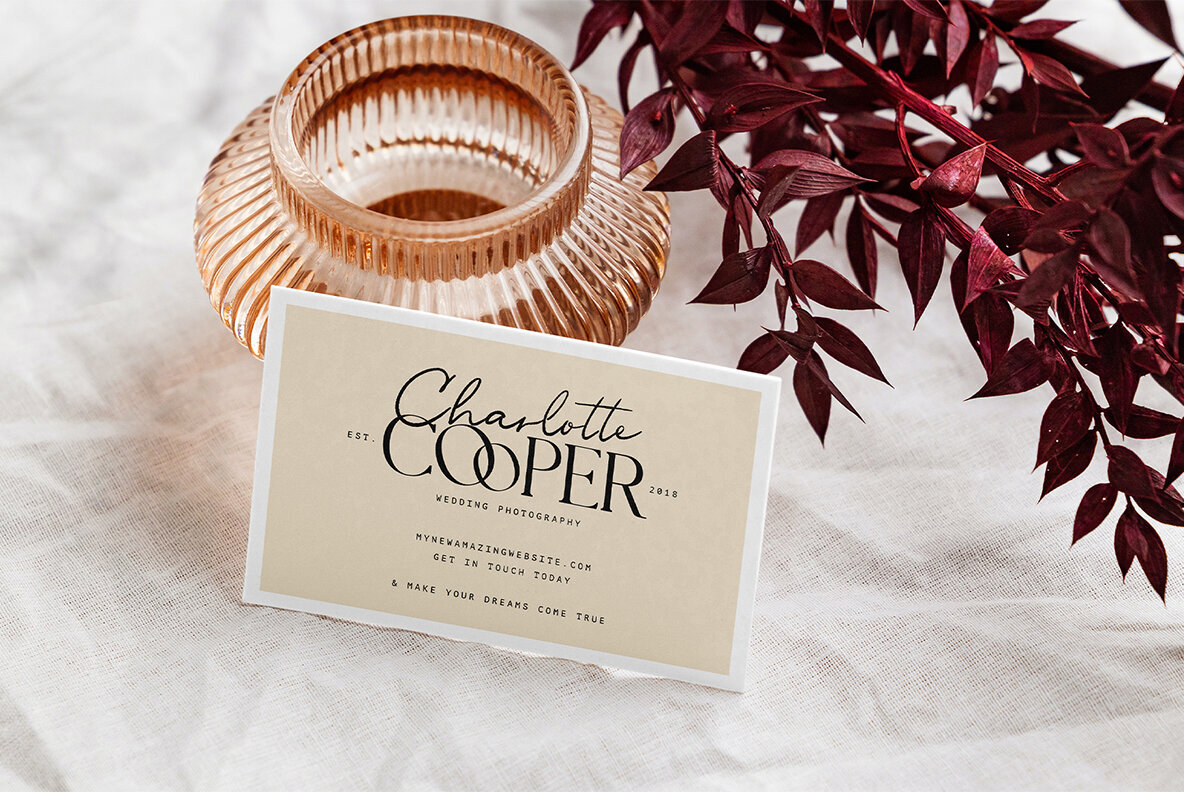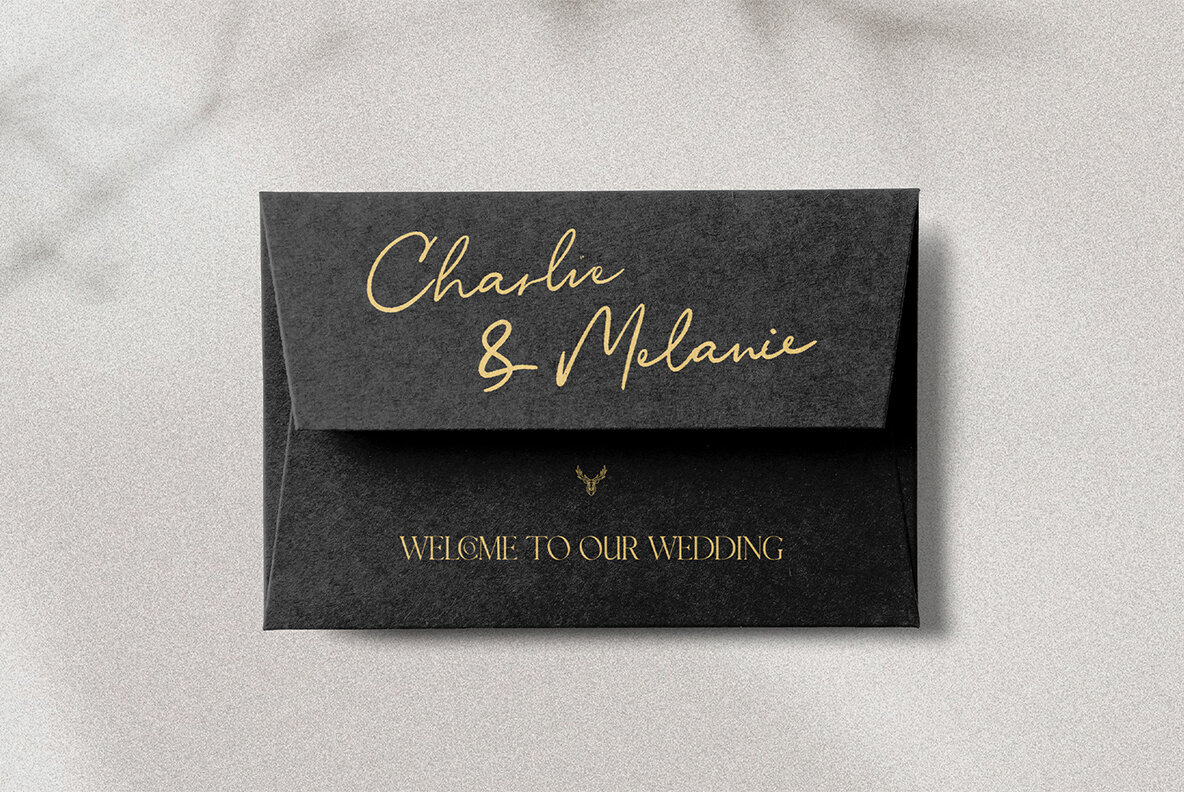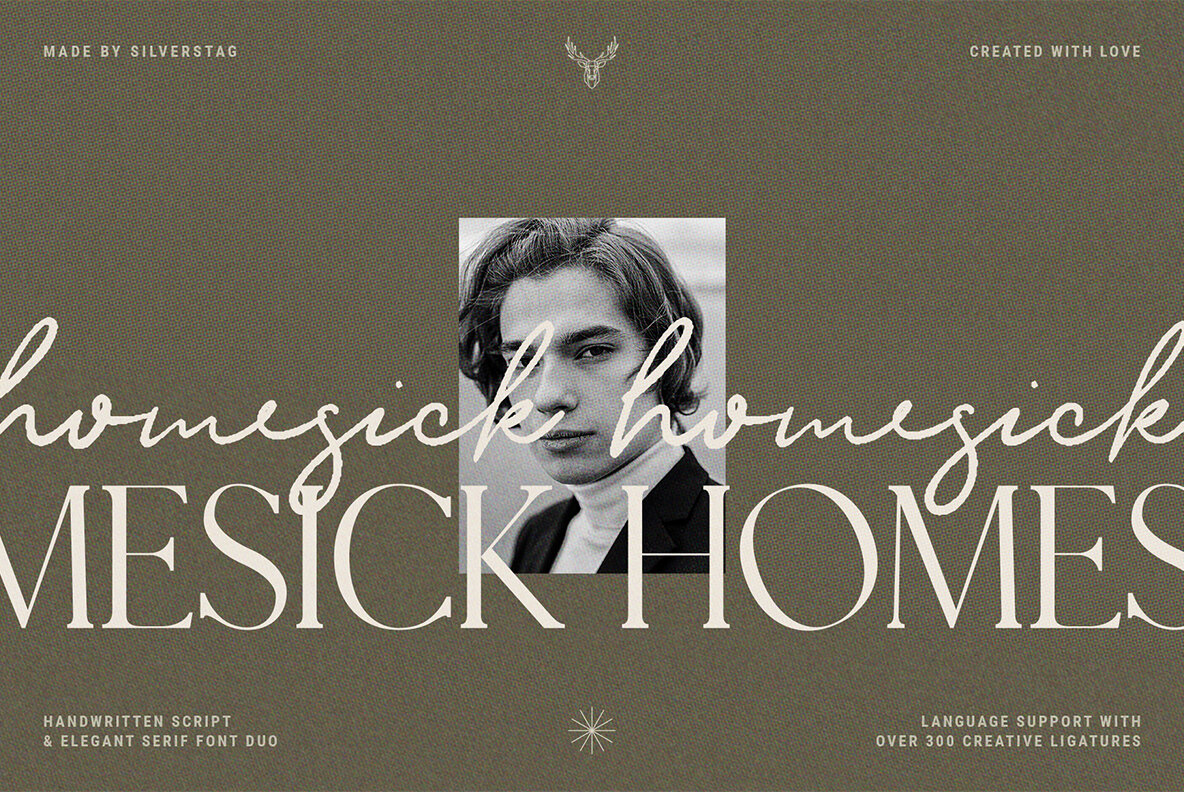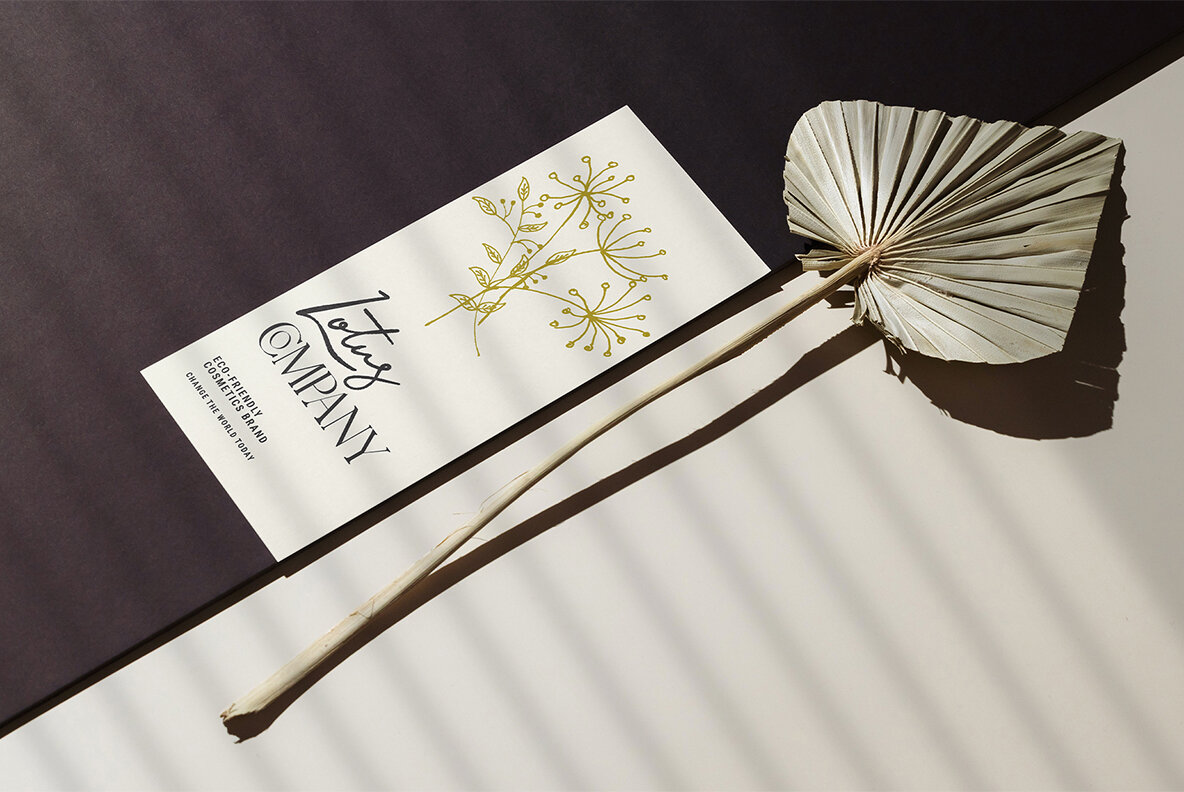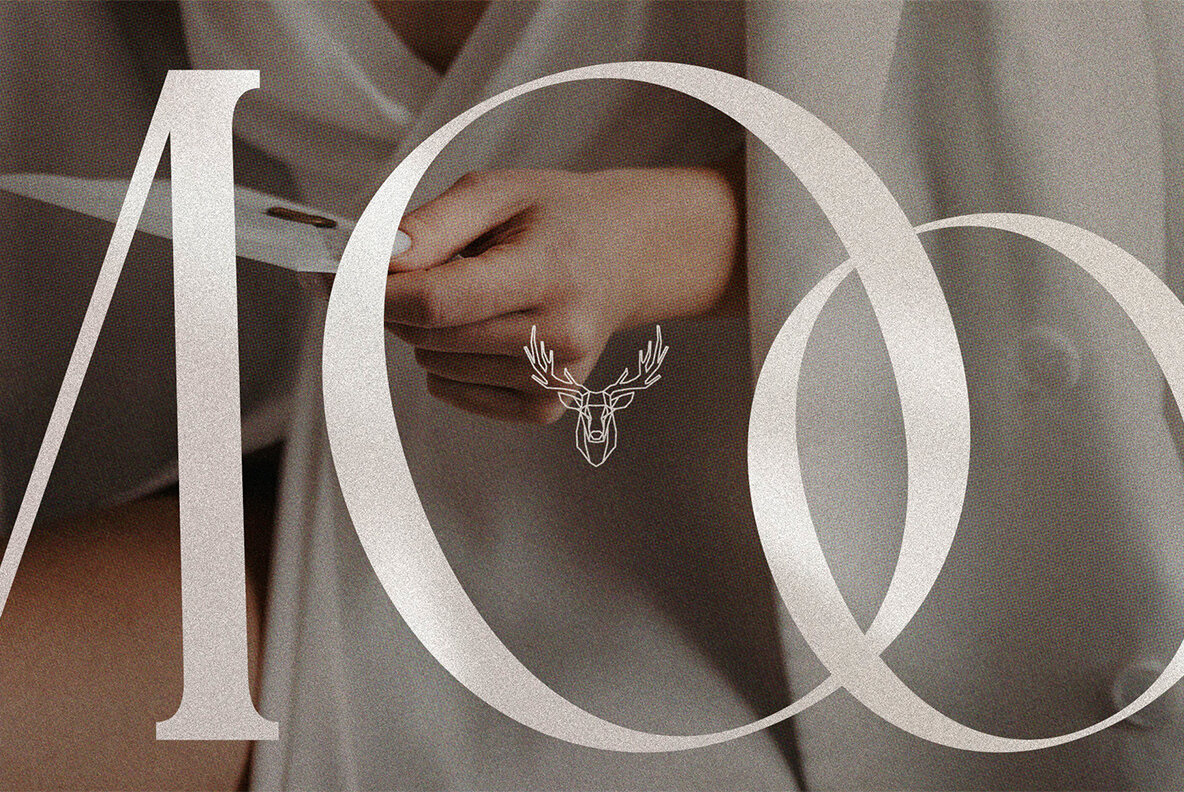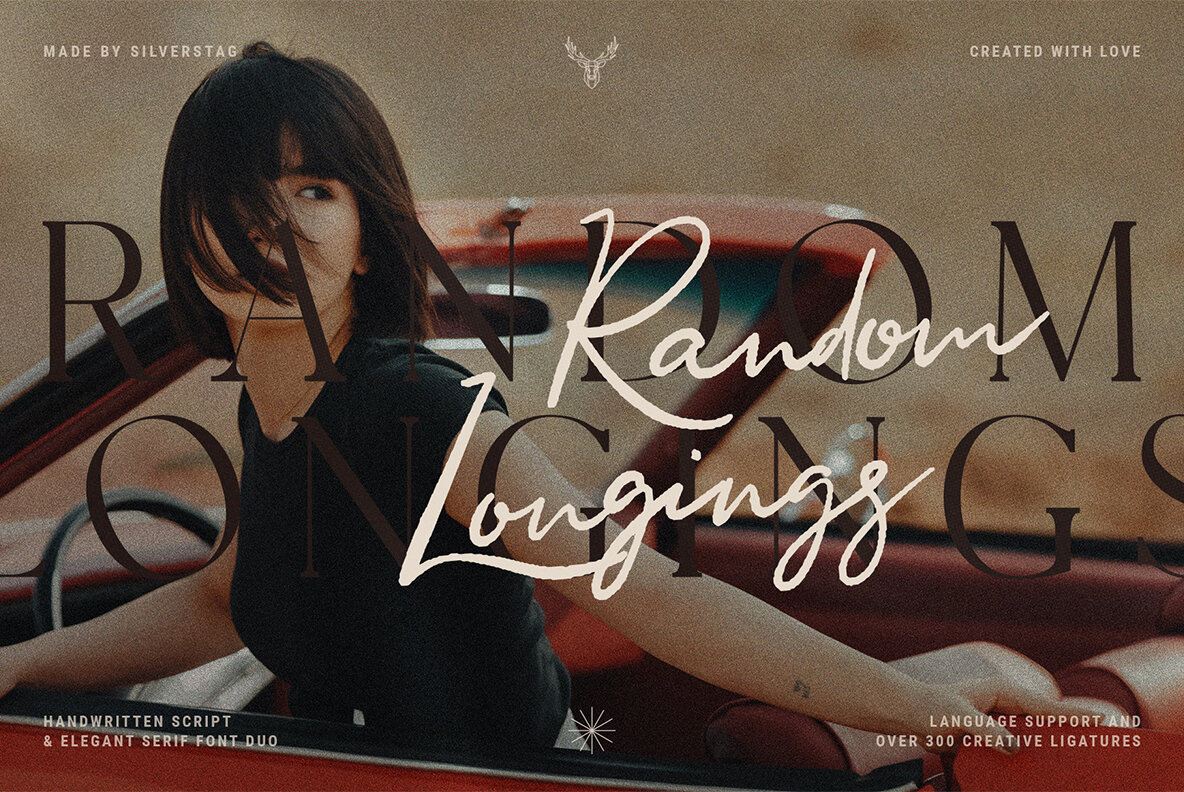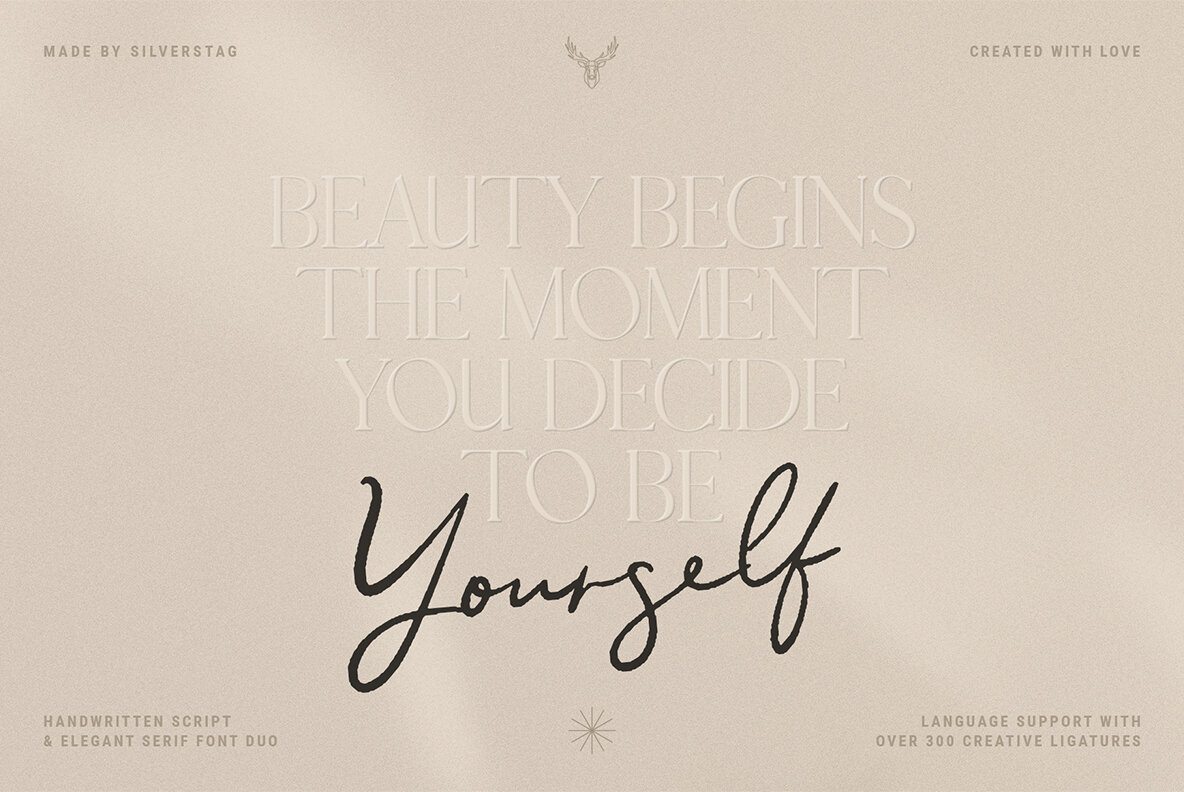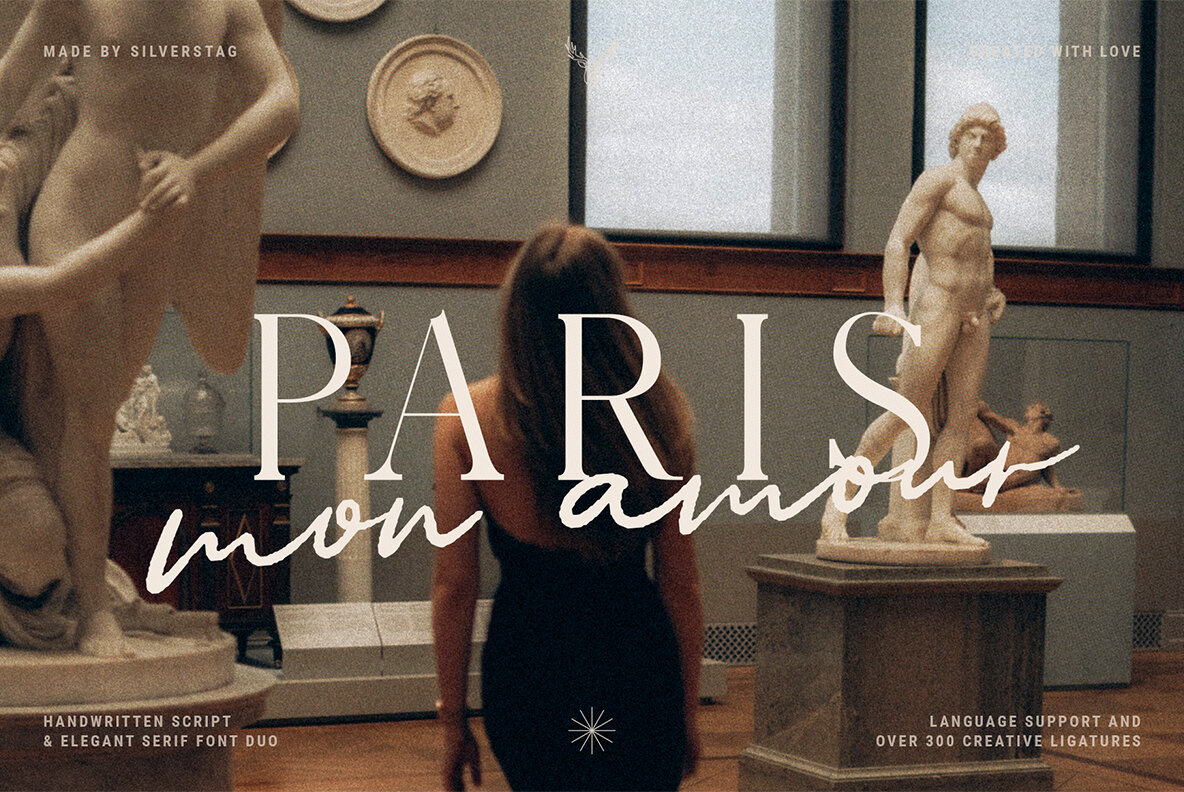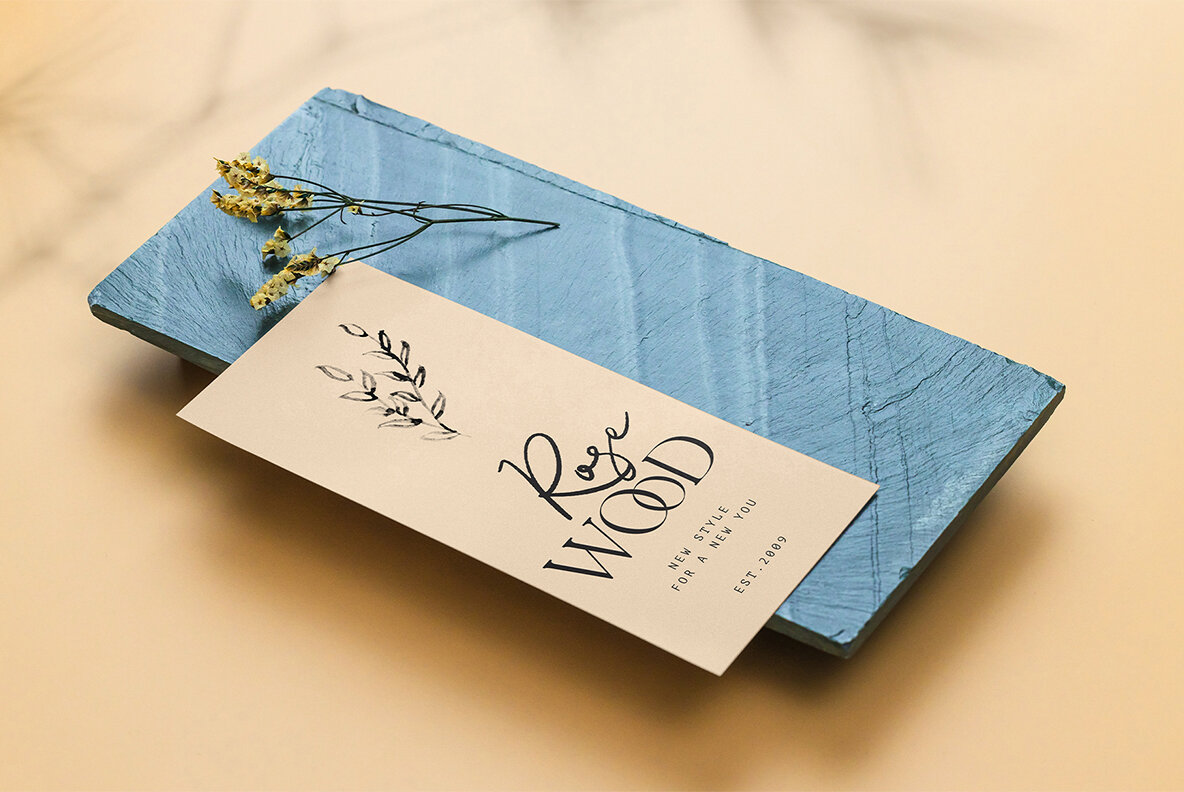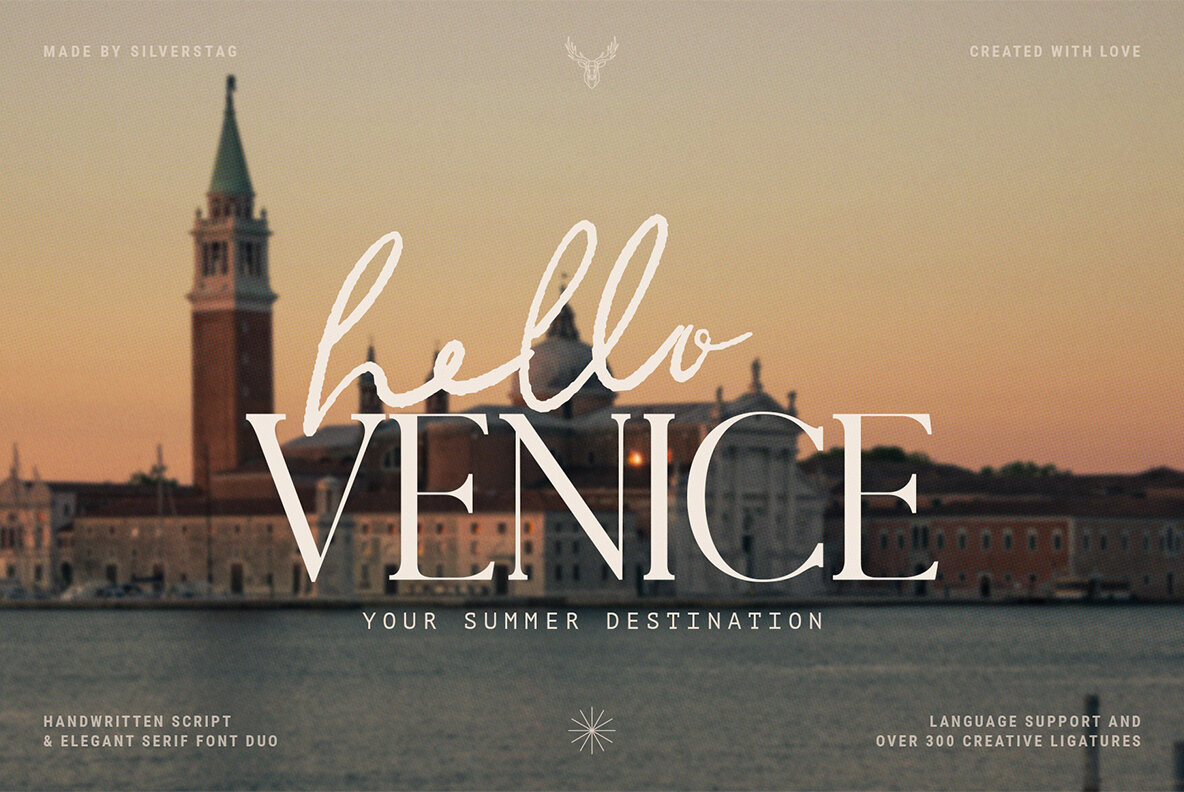
September just started two weeks ago and cloudy weather is forcing me to stay at home. I feel quite nostalgic about the blue skies of July, and even scorching heat of August. I wanted to transfer my feelings to paper and that's how this romantic font duo was born. I have been working on the script during the heat wave in August, but I have finished the serif in September.
Riverside Lovers script & serif both have full language support and over 300 ligatures. Most of them are included in the script font to give a true handwritten feel to all your designs. I invite you to check out the preview images, and I hope you will be immersed in my vision for this creative typeface that, I am sure, will work for all kinds of interesting projects you might be working on this year.